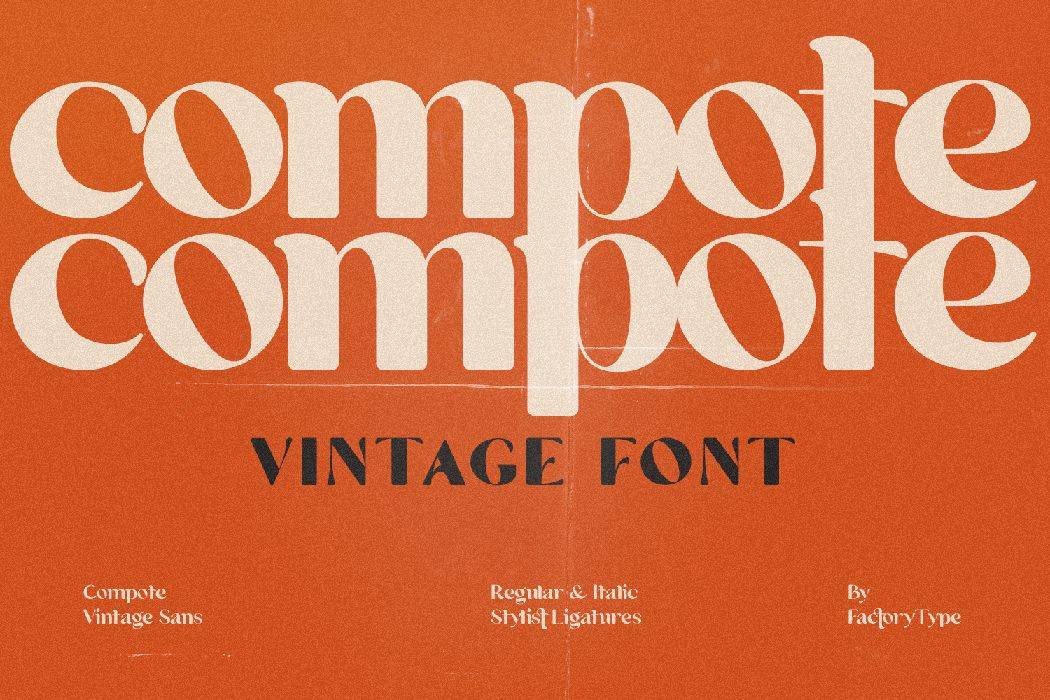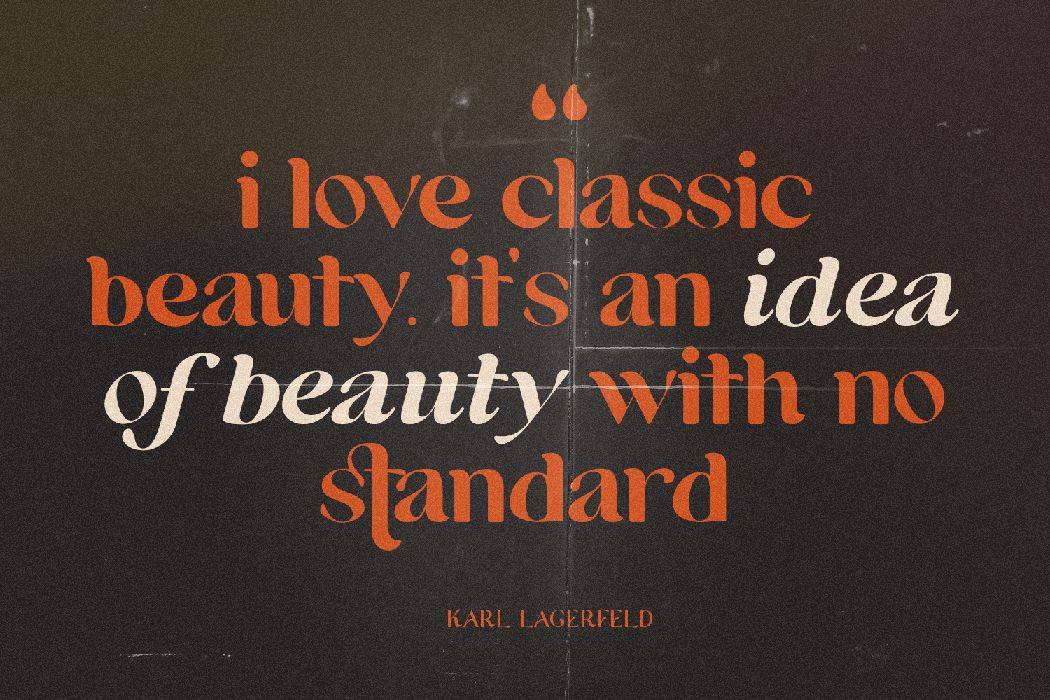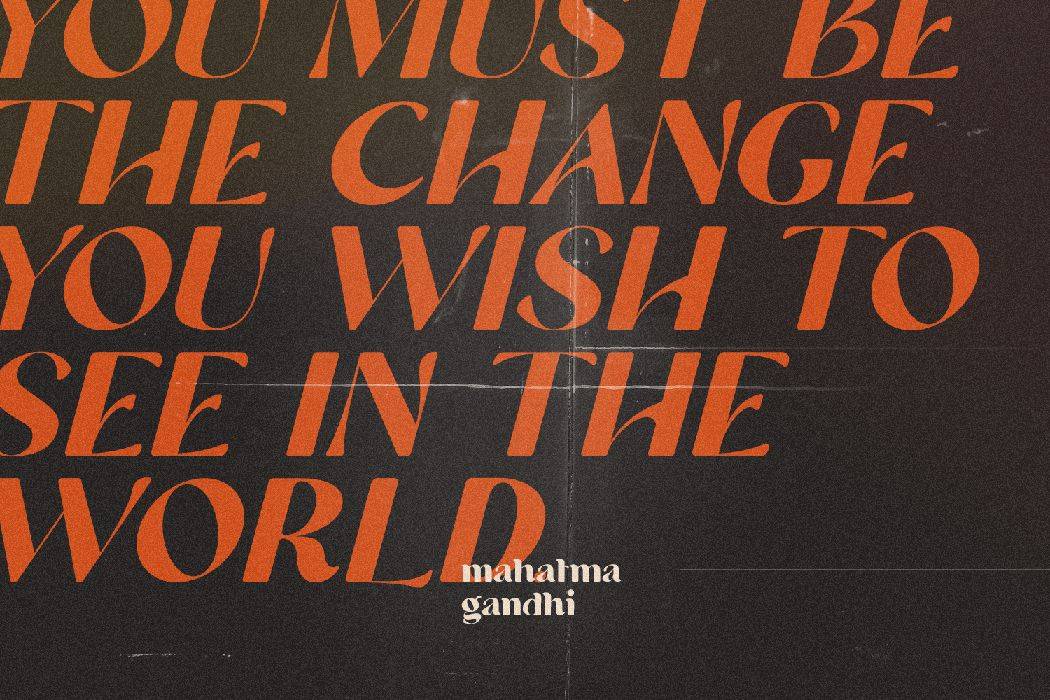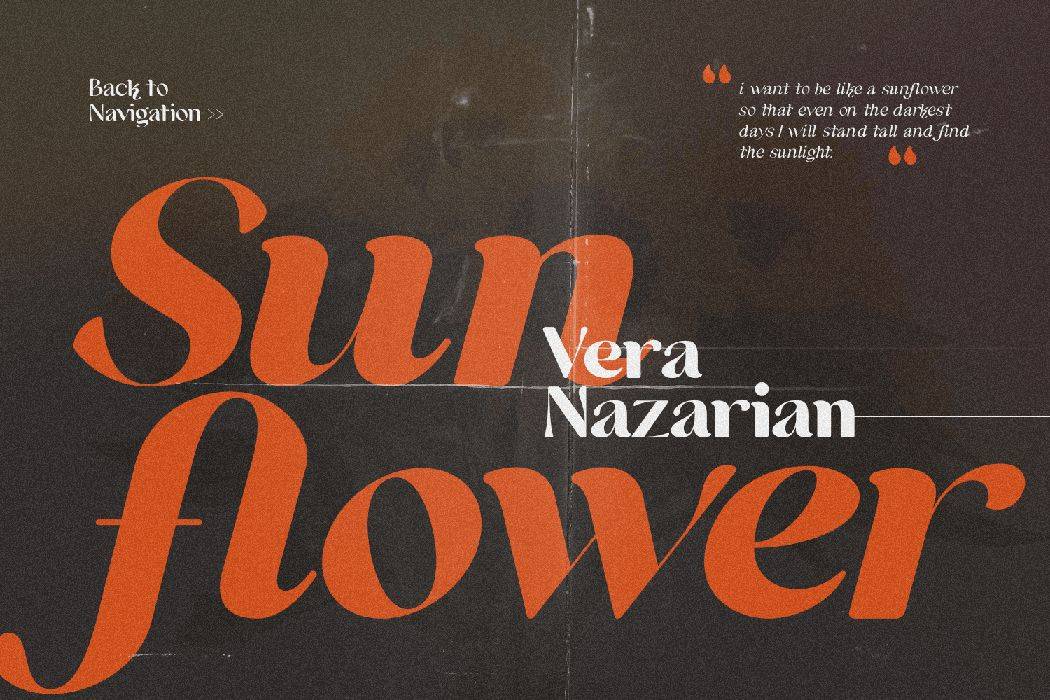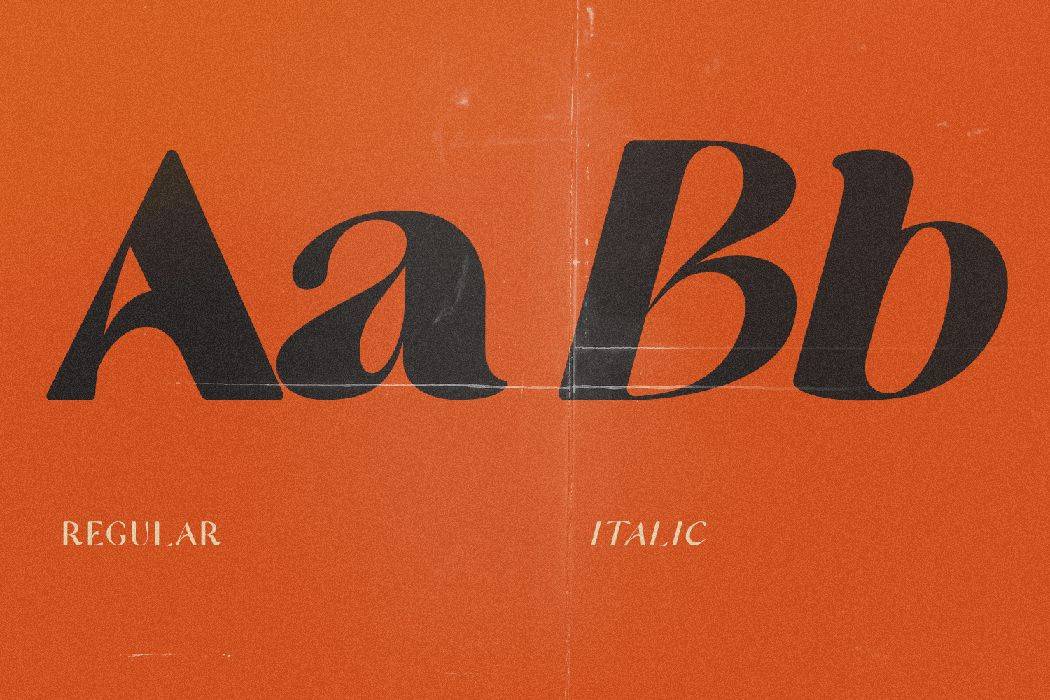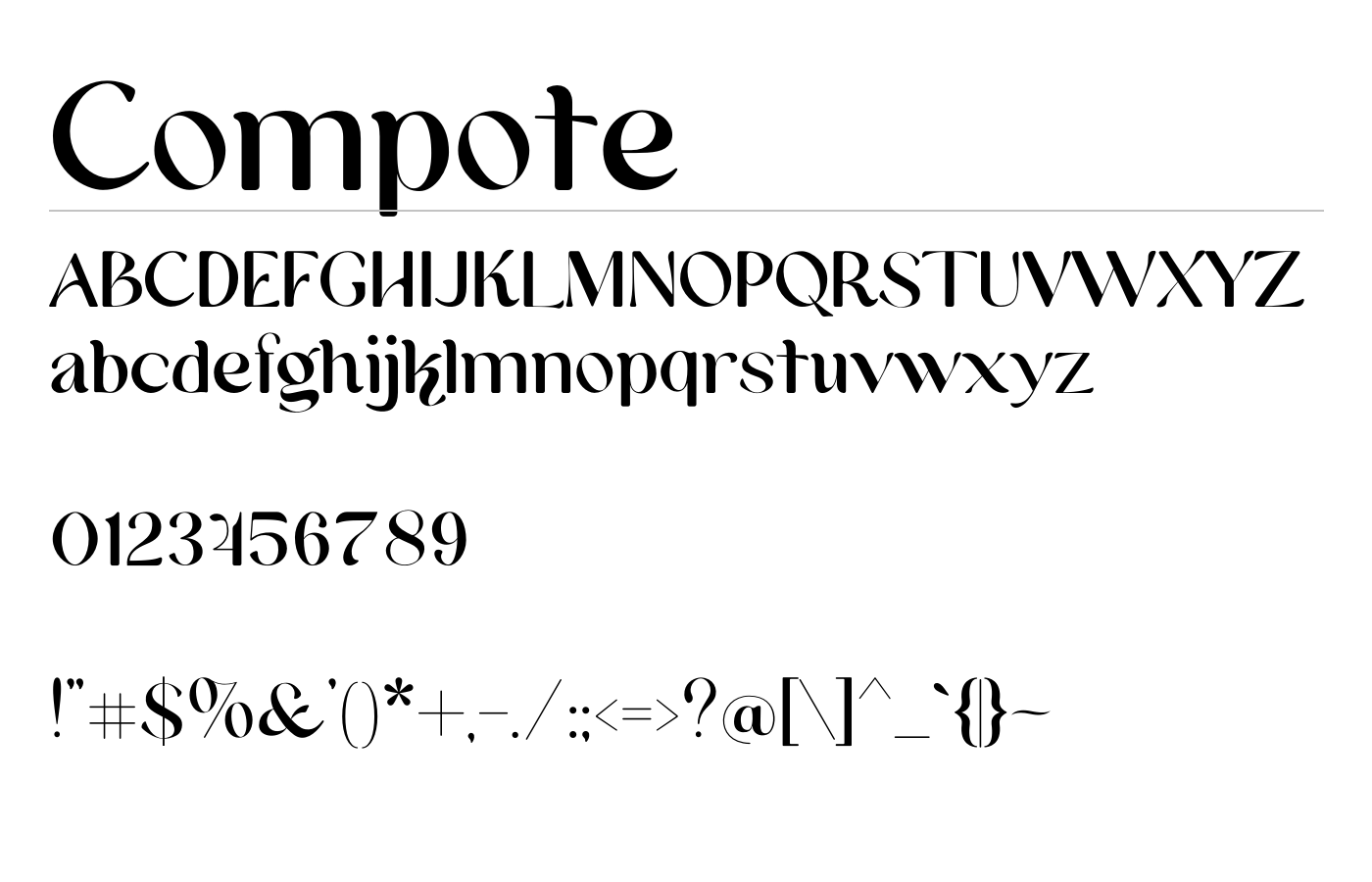
Compote is an elegant serif font with a modern yet slightly whimsical feel, characterized by its sharp contrast between thick and thin strokes and distinctive, playful details like its unique letterforms and delicate serifs. Its refined and stylish appearance makes it ideal for luxury branding, editorial headlines, and creative logos where a sophisticated but approachable personality is desired. This font works well in designs seeking a blend of classic elegance and contemporary flair.
Compote Font
About Compote Font
| Font family | Compote Font |
| Release date | 2022-06-23 |
| Designer | Nicho |